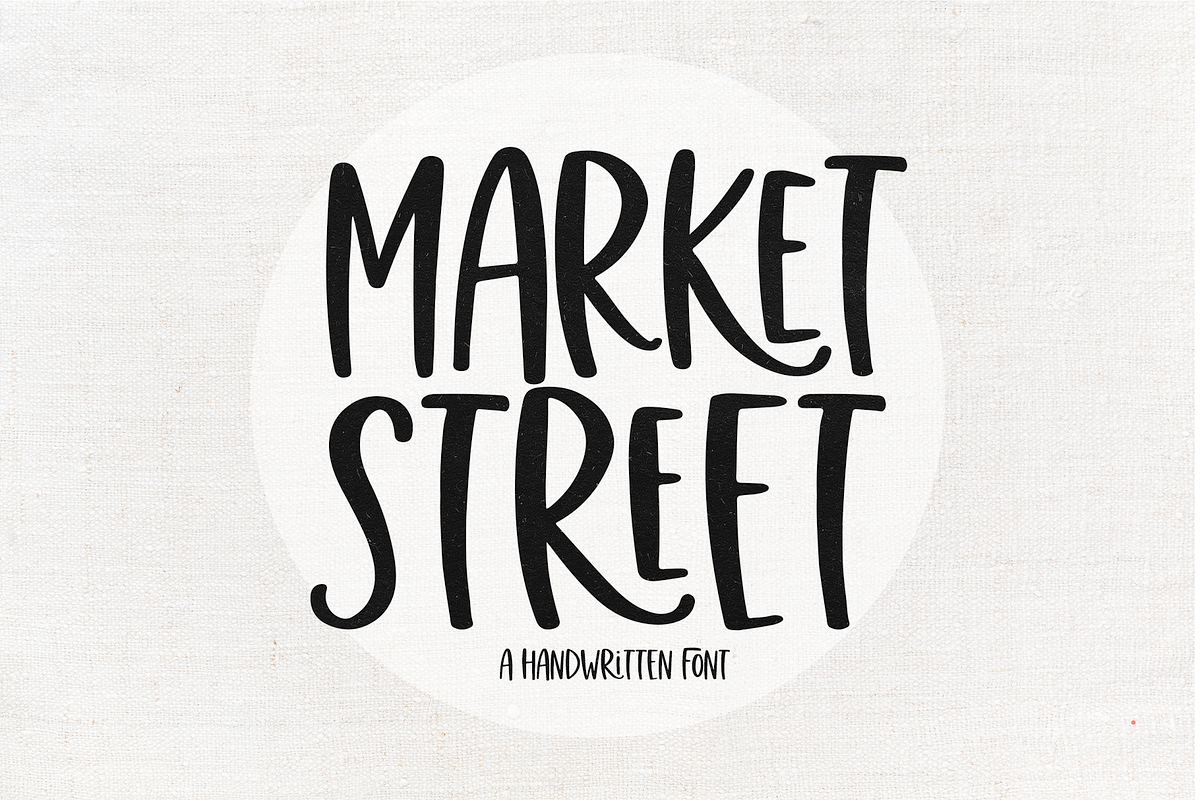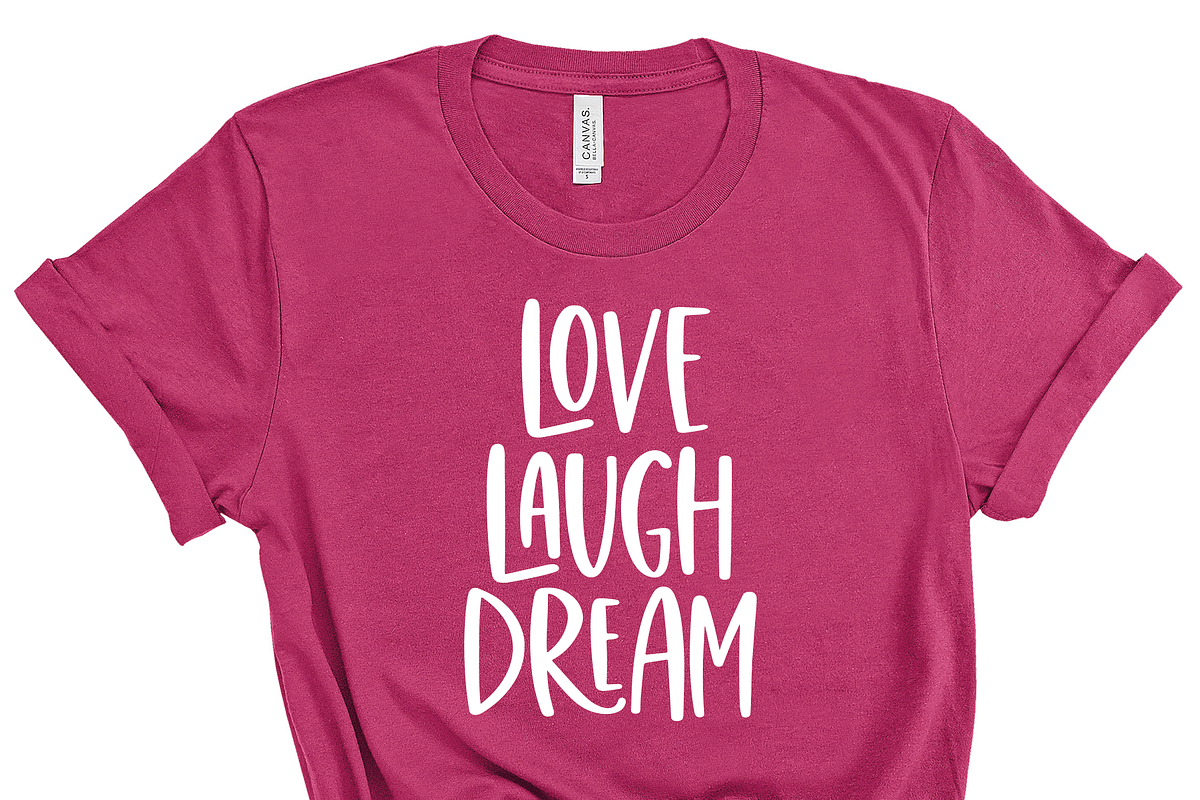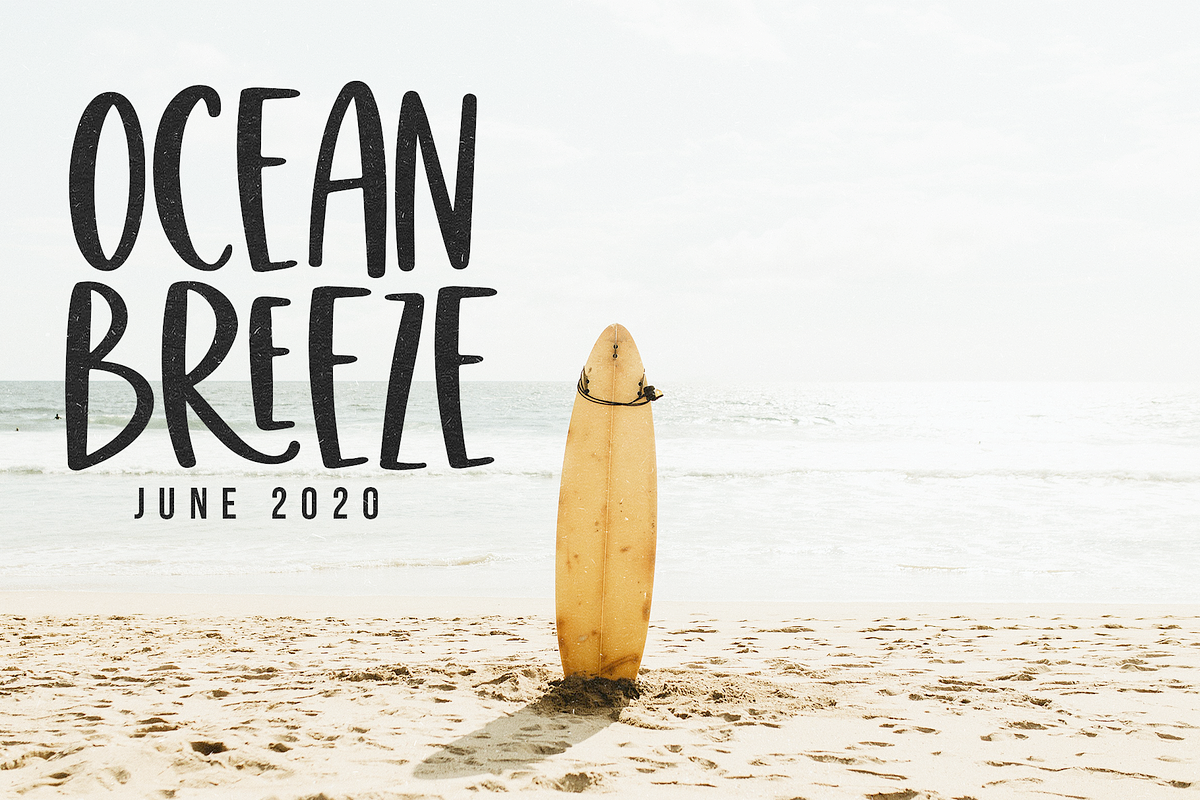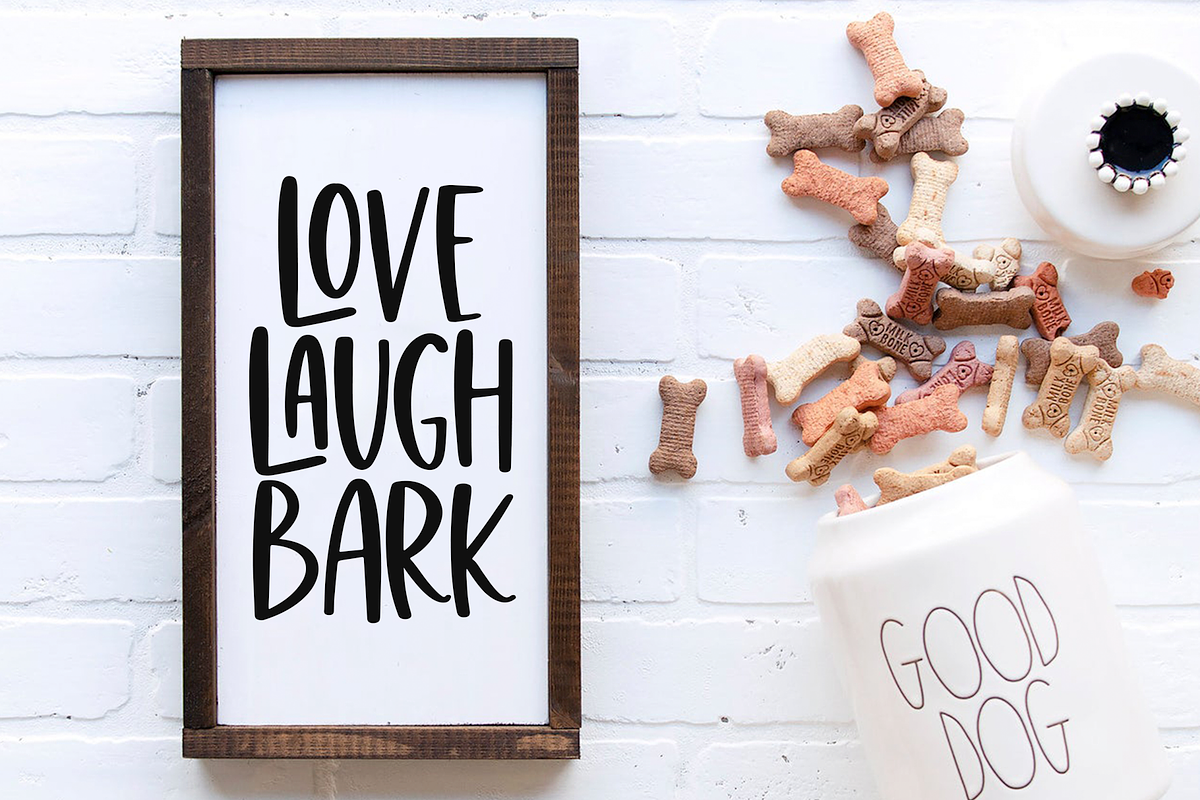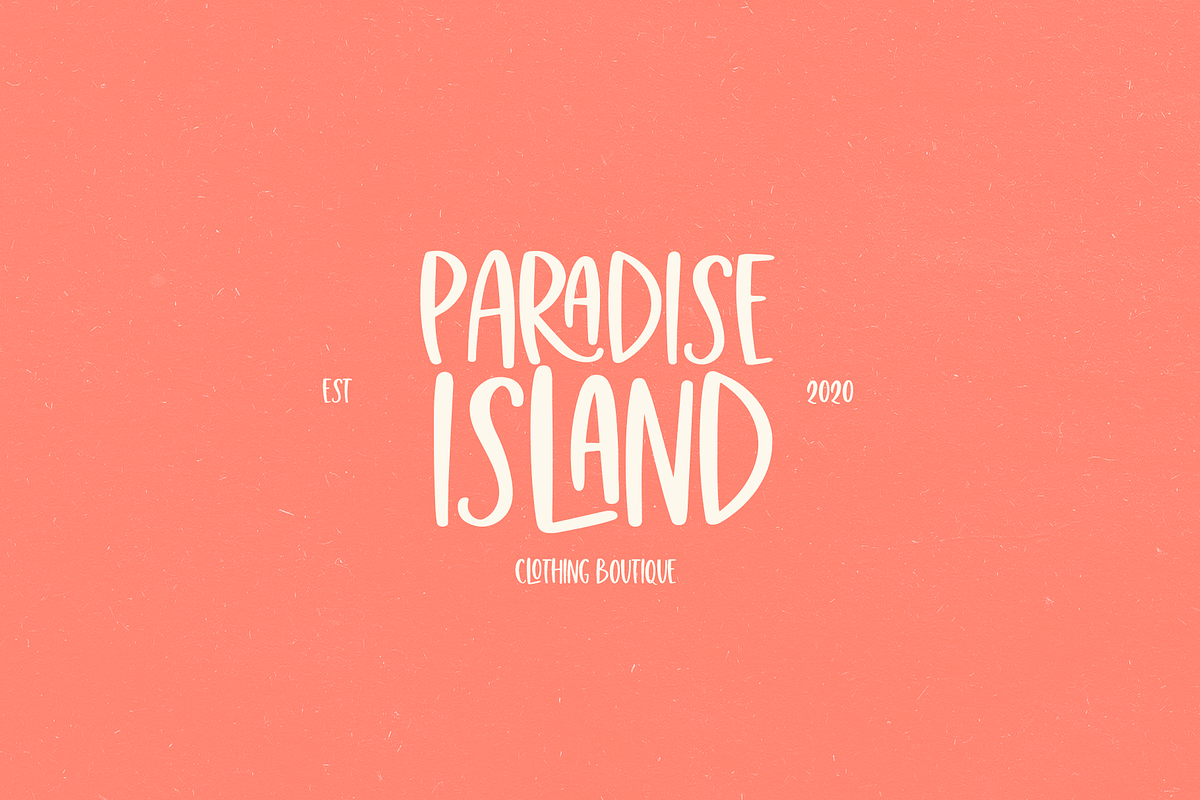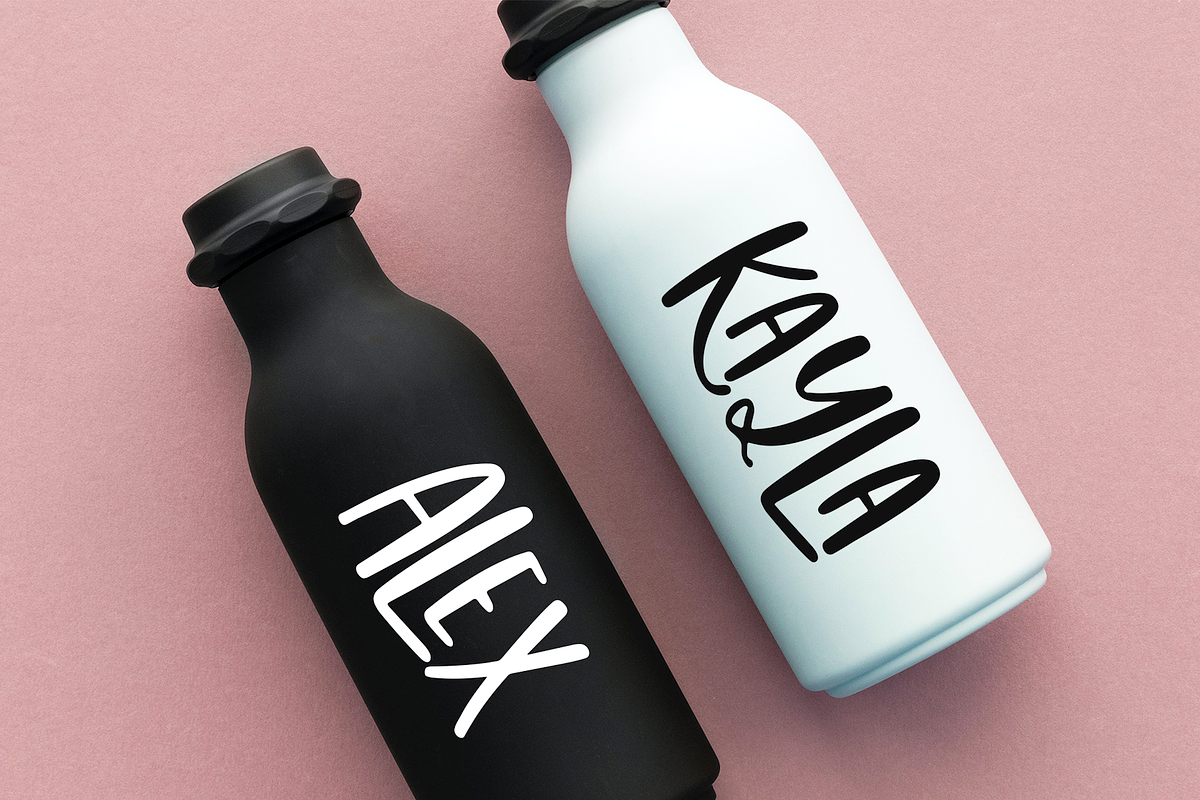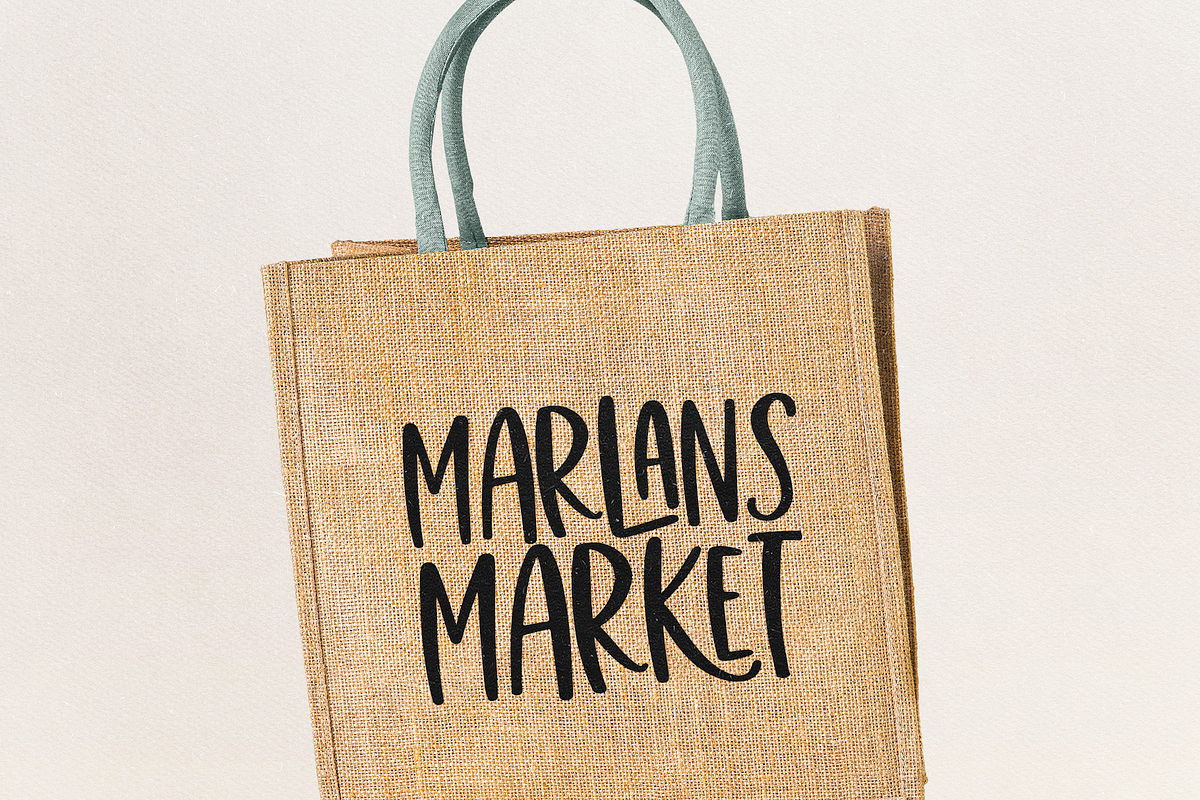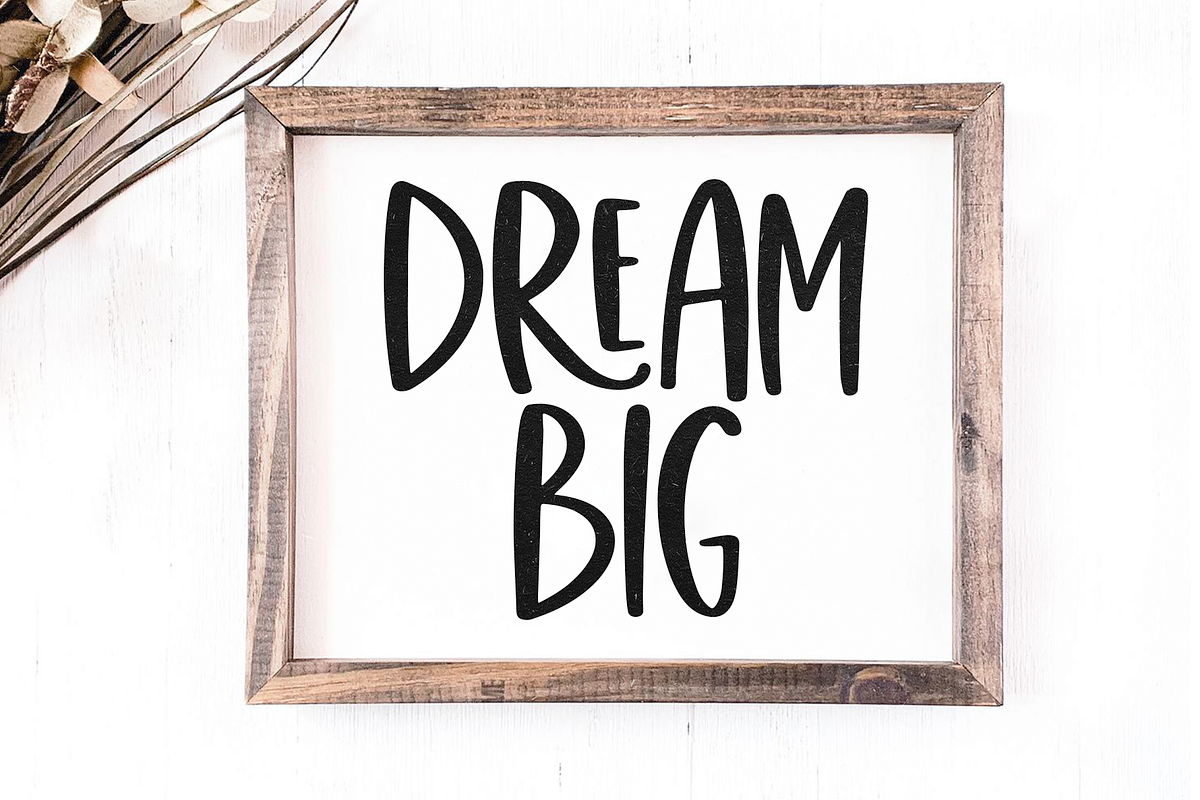
Market Street | Fun Handwritten Font
Market Street is a fun handwritten font.
This font is perfect for your branding, craft projects, instagram, social media, quotes, signs, farmhouse decor, logos, svg designs and more!
Market Street | Fun Handwritten Font by KA Designs fits naturally into Branding, posters, packaging, typography.